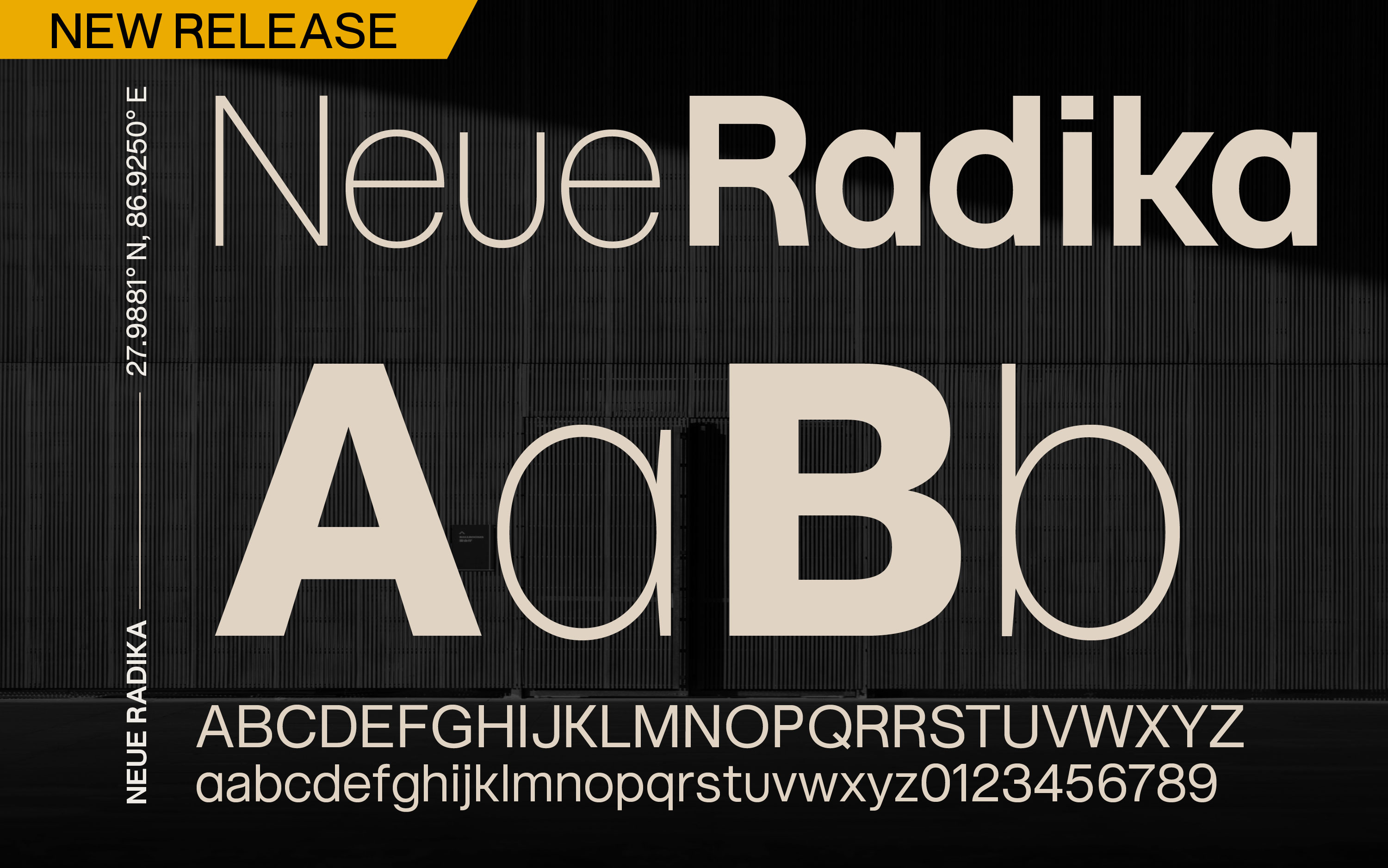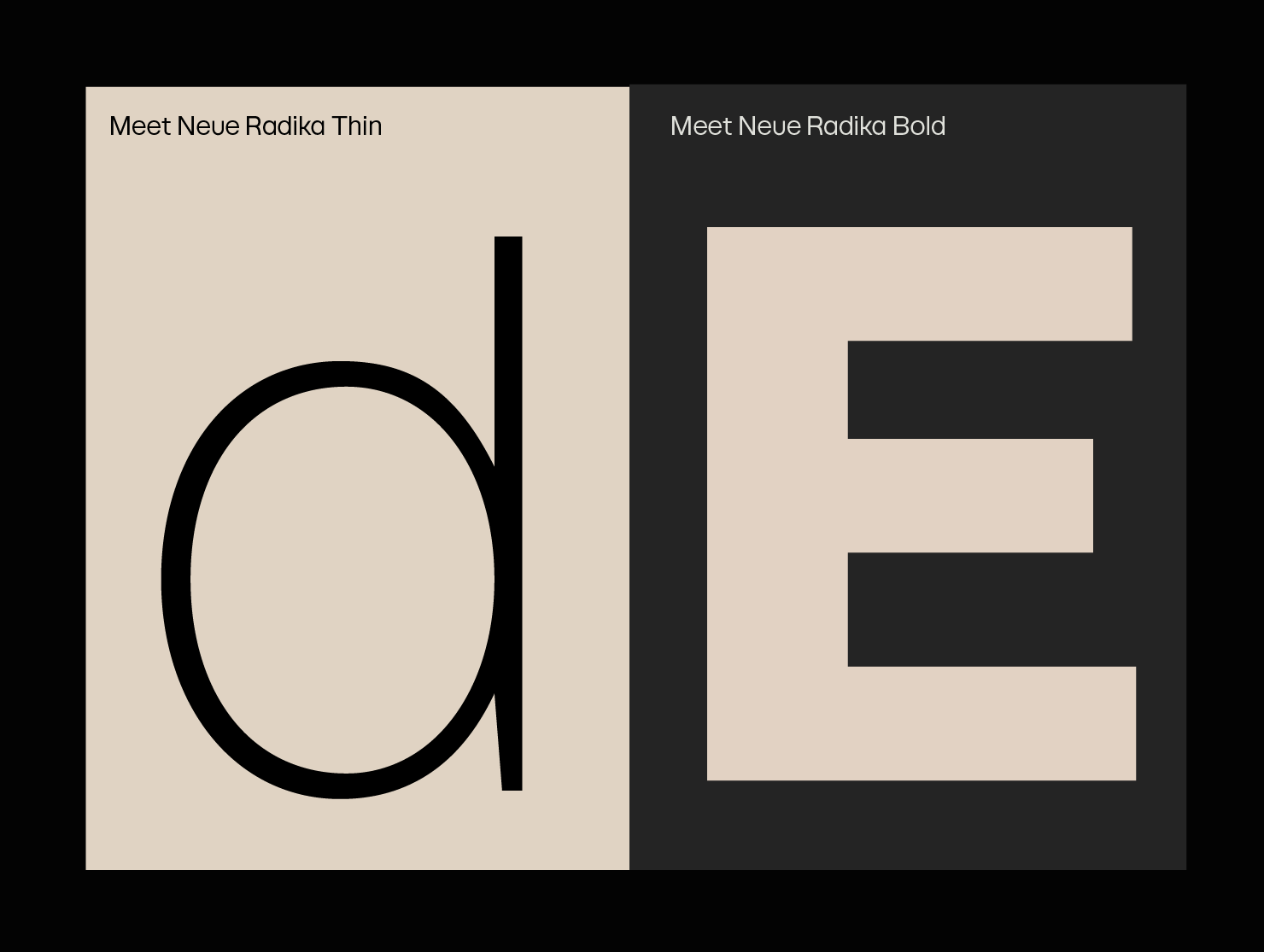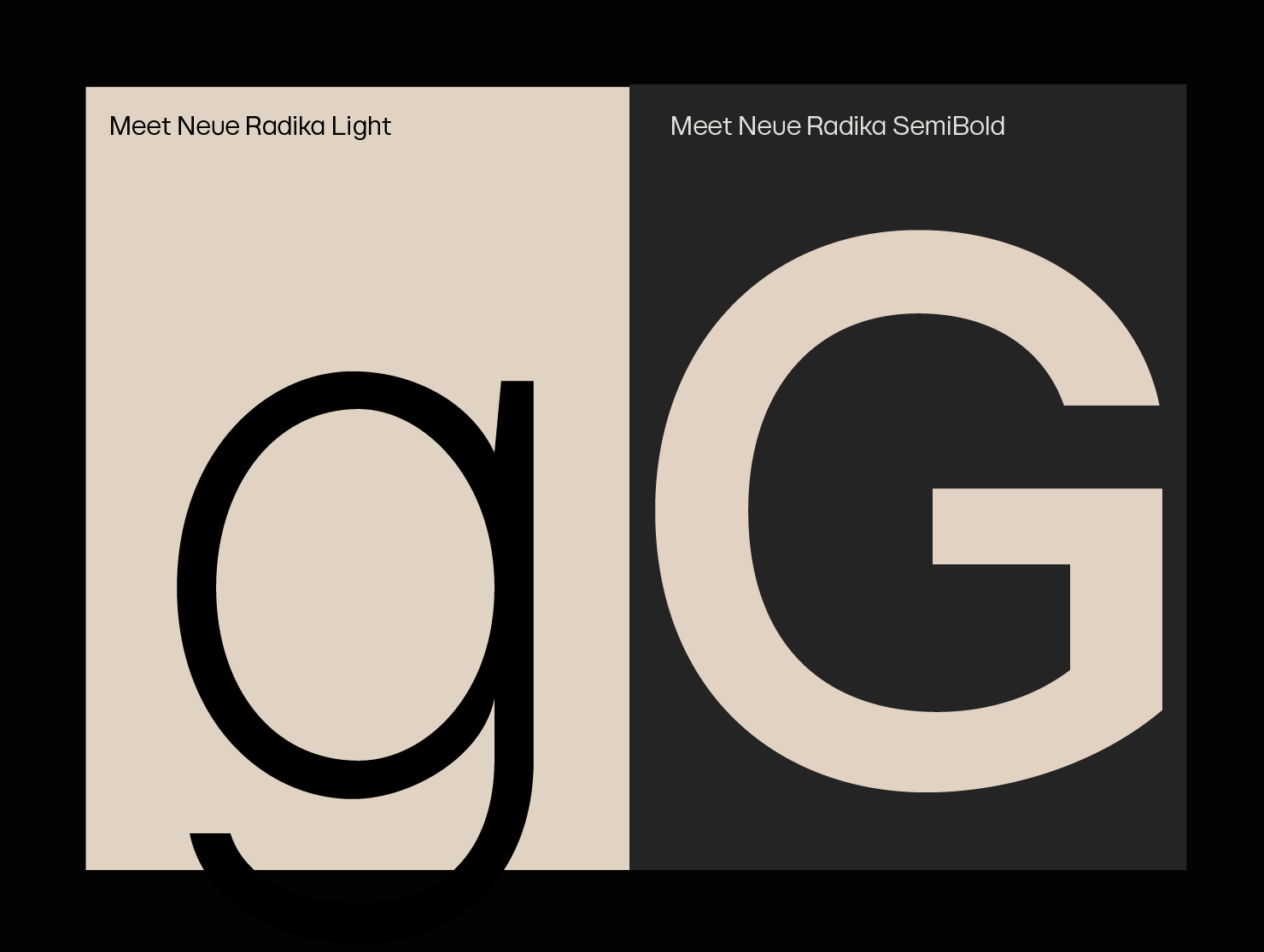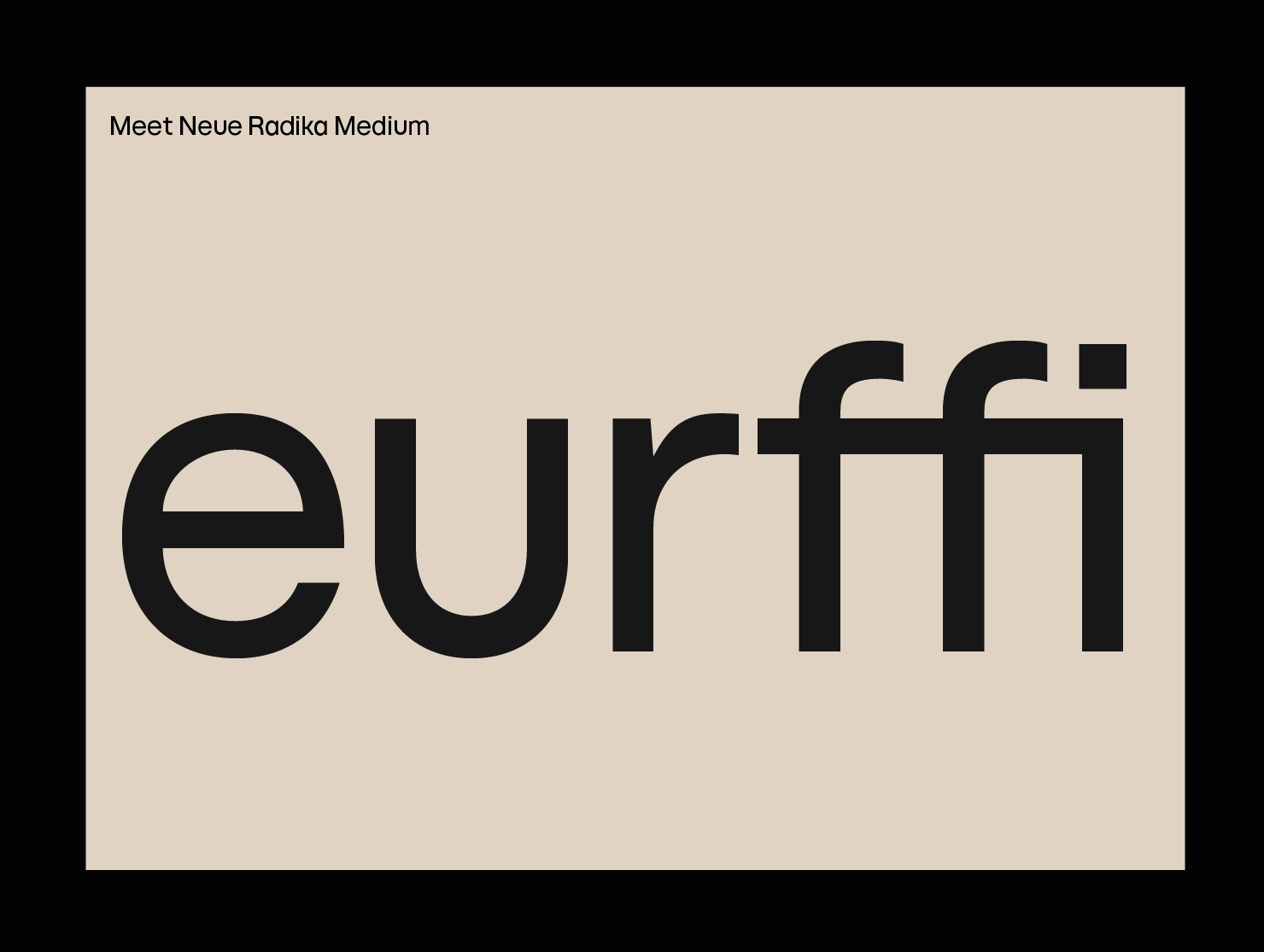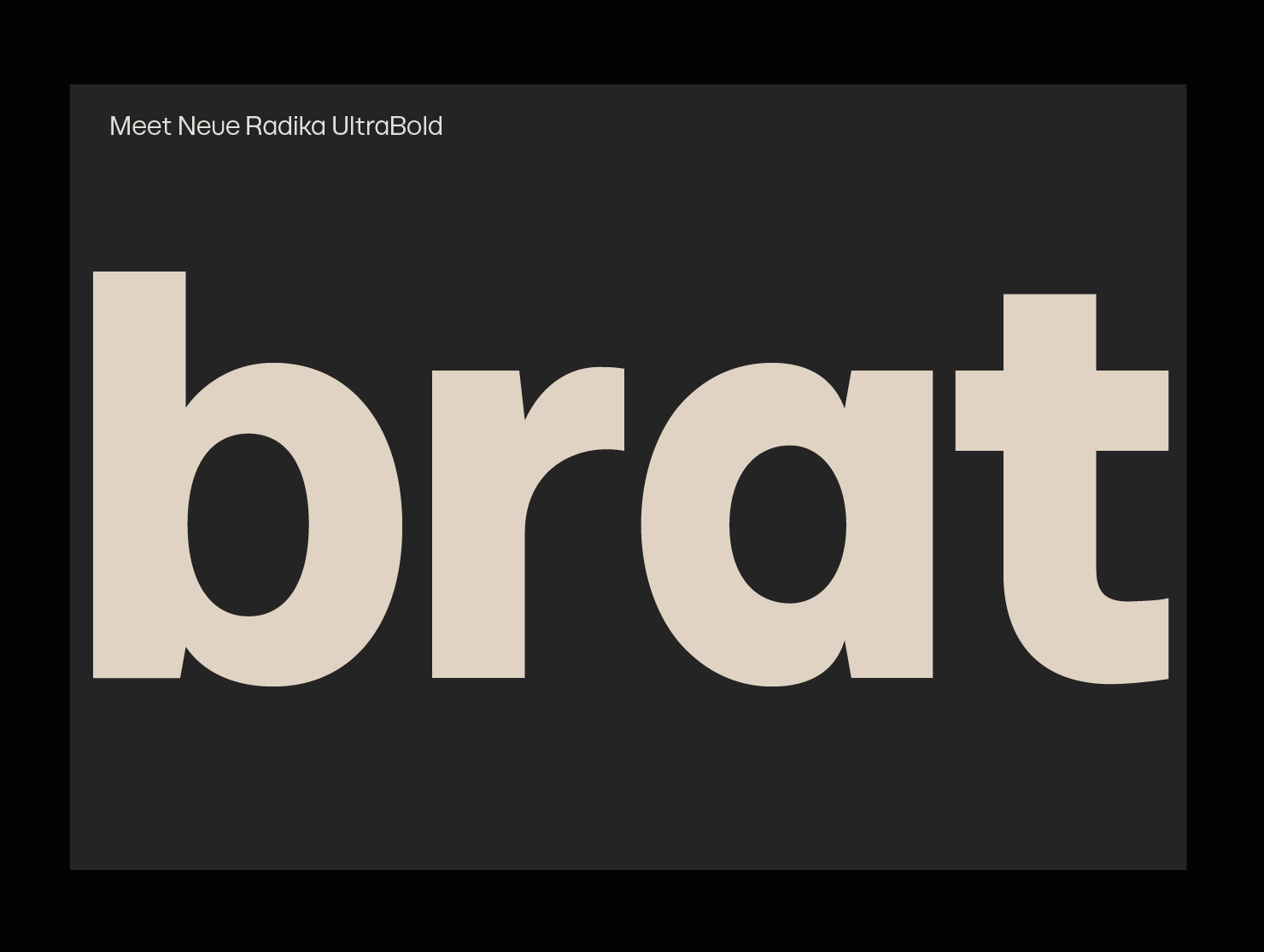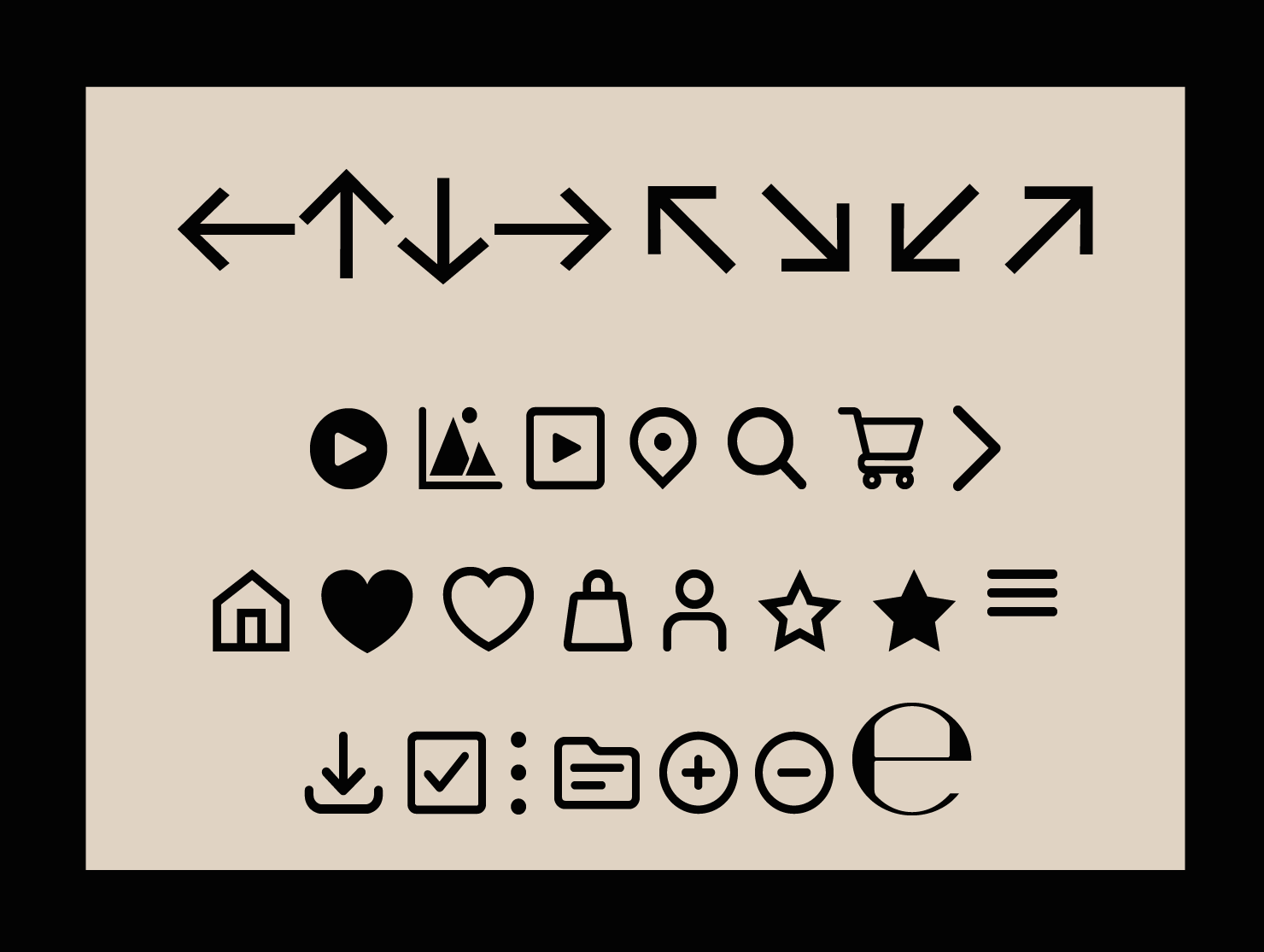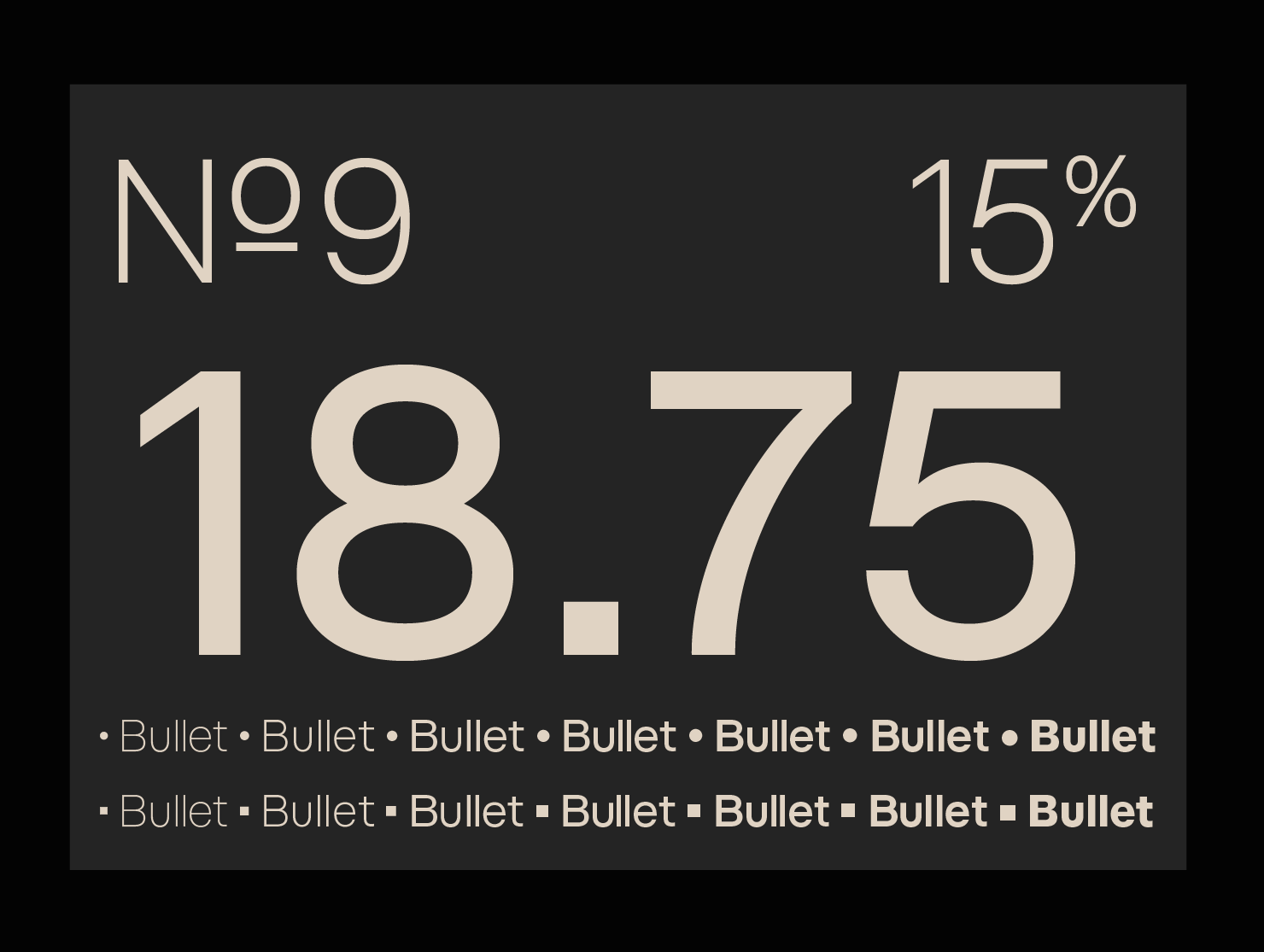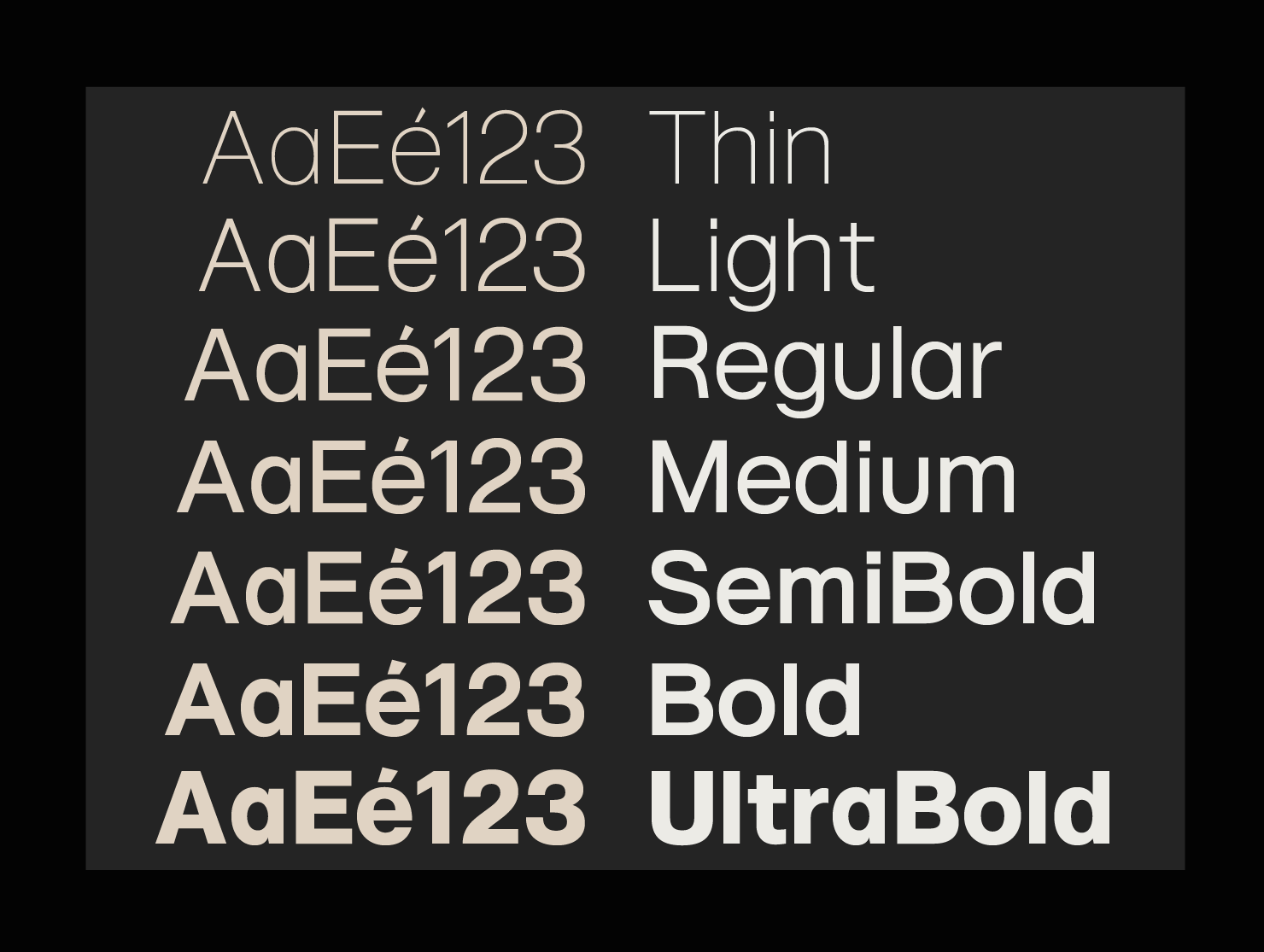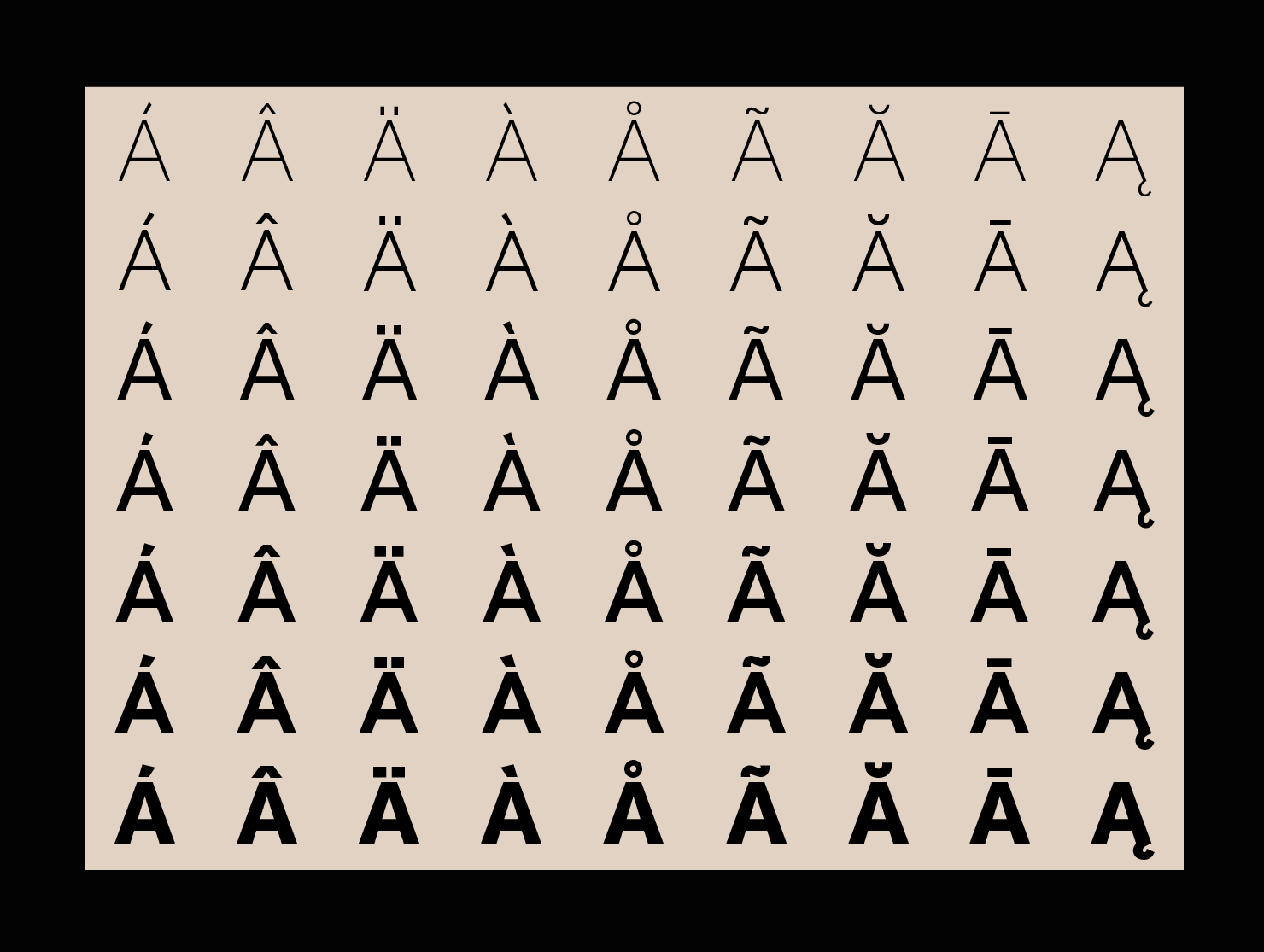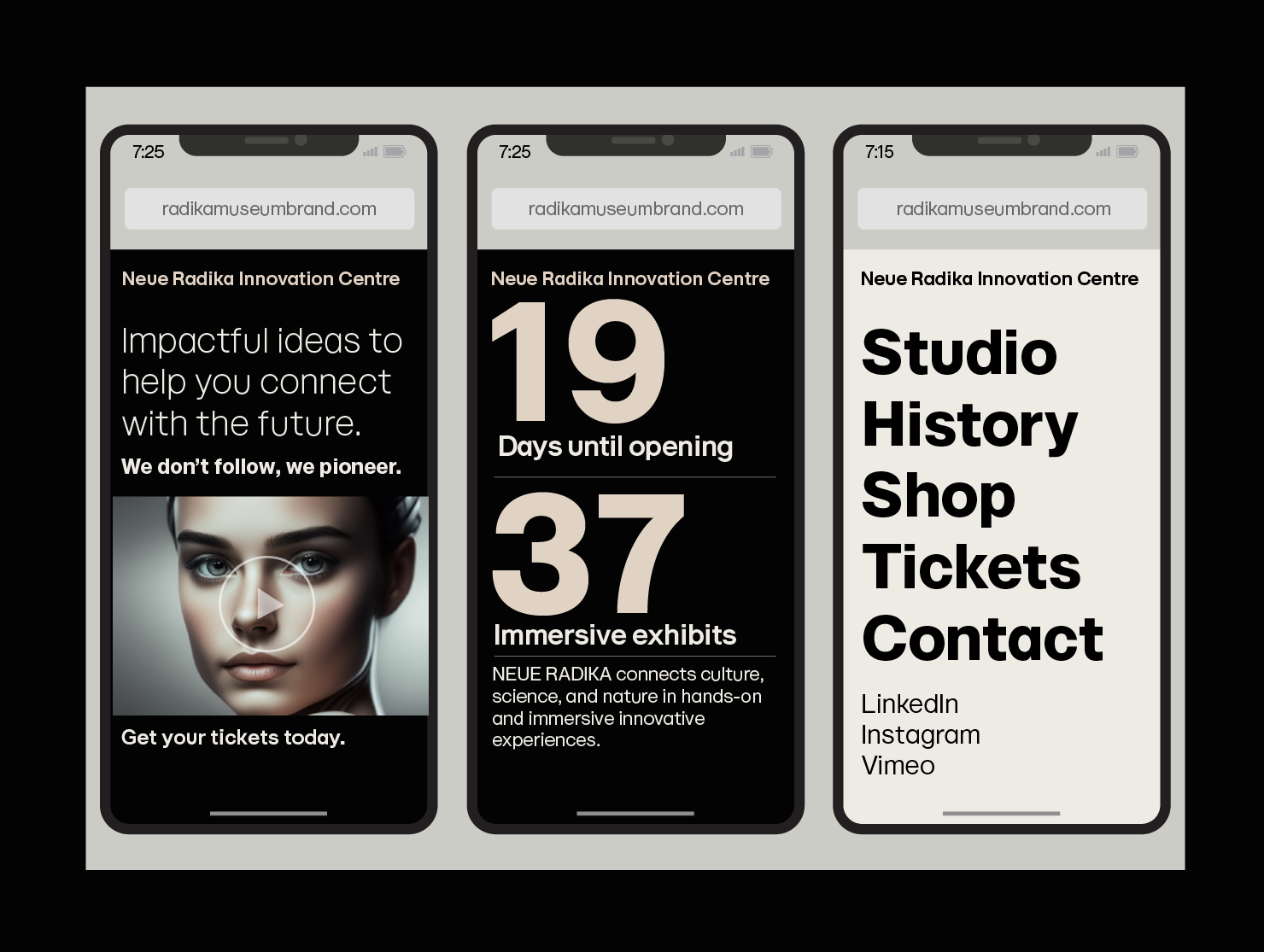
Neue Radika
MODERN SWISS TYPOGRAPHY
Neue Radika transitions seamlessly between attention-grabbing headlines and easy to consume body copy. Thin to UltraBold. Test drive and licensing: Neue Radika.
SEVEN WEIGHTS FROM THIN TO ULTRABOLD
MULTILINGUAL SUPPORT
BIG IMPACT ON SMALL SCREENS
OMNICHANNEL BRANDING FONT
OMNICHANNEL SANS SERIF
EDITORIAL DESIGN FONT
STRONG PRESENTATION FONT
VERSATILE WEB FONT
AMPLE LIGATURES
BOLD IS BRAT
ELEGANT AND BOLD
MODERN FONT DESIGN
ARROWS, UX, PACKAGE DESIGN SYMBOLS
POWERPOINT GLOW UP